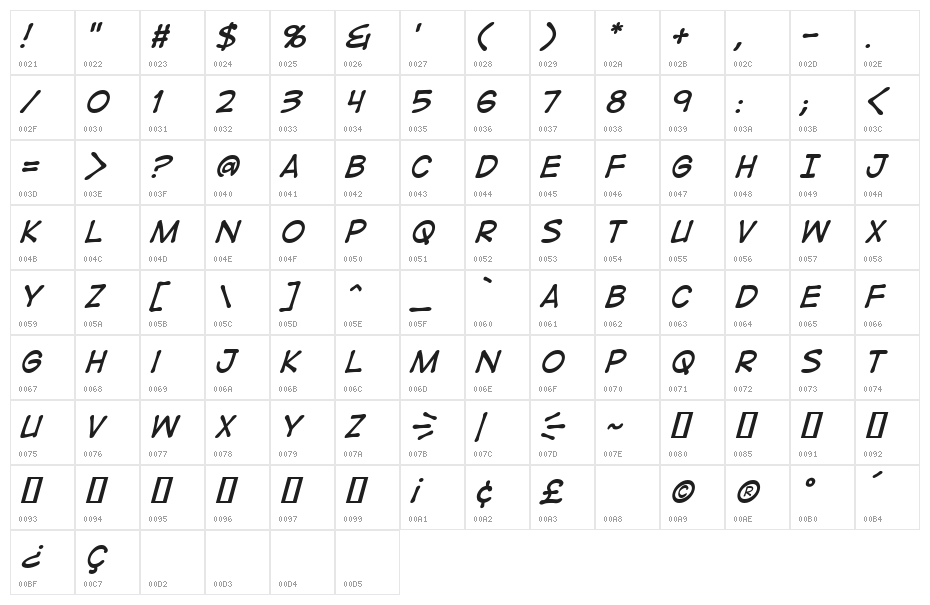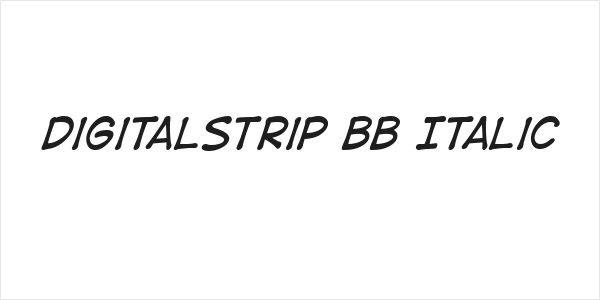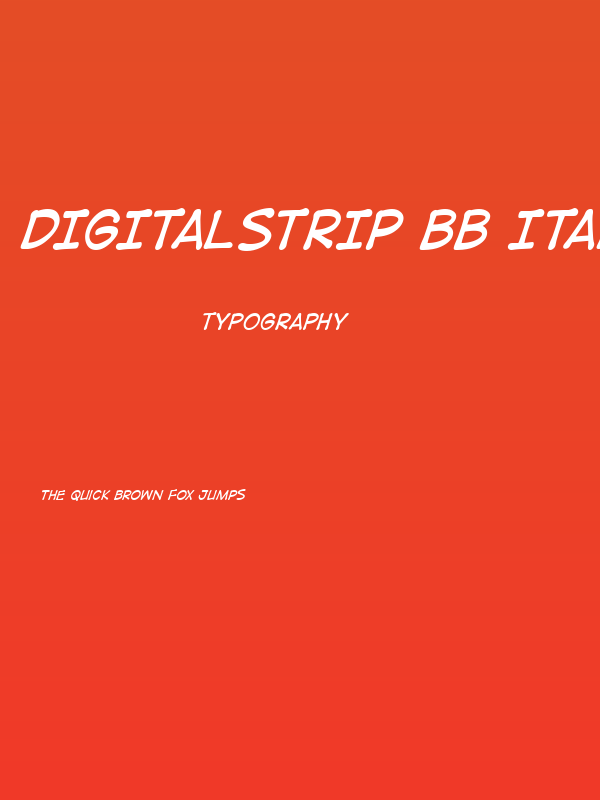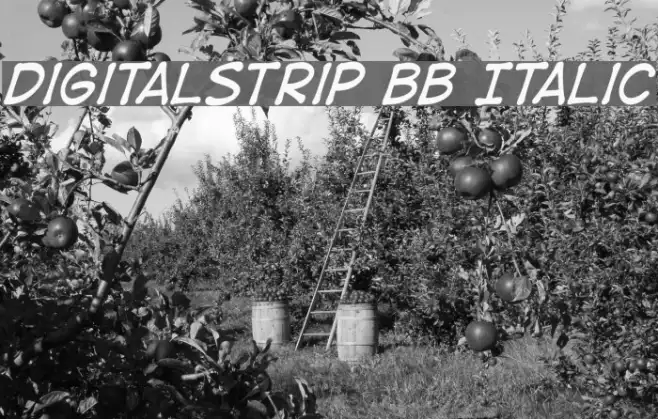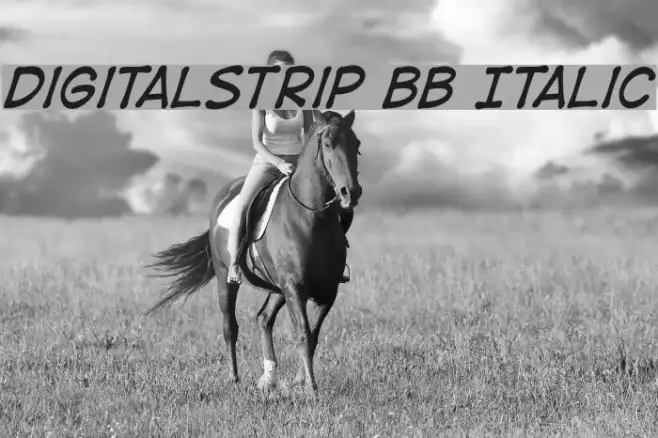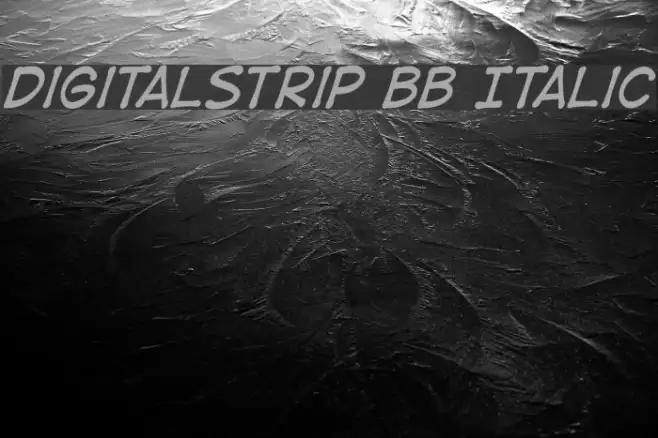
DigitalStrip BB Italic Font
DigitalStrip BB Italic Description
This font features a playful and dynamic style with a handwritten appearance. The characters are slightly slanted, giving an italicized look that adds a sense of motion and energy. The strokes are smooth and rounded, contributing to its casual and approachable feel. The uppercase and lowercase letters maintain a consistent flow, while the numerals and special characters are designed to complement the overall aesthetic. This font is ideal for projects that require a personal touch or a fun, informal vibe.
| Use Case | Headlines, Informal text, Branding |
| Proposed Projects | Great for comic strips, children's books, casual invitations, and playful branding. |